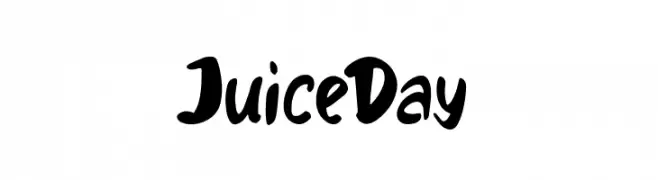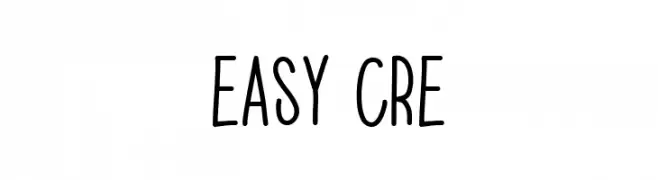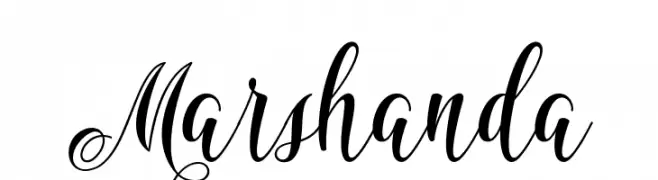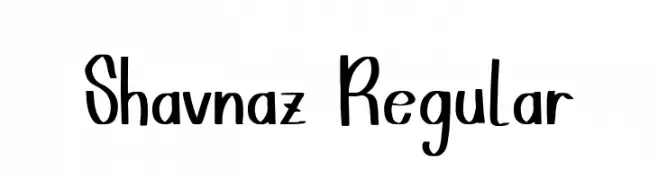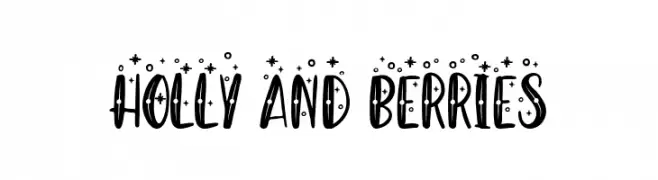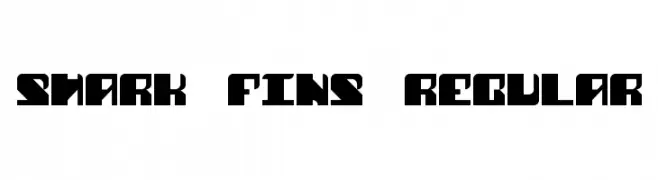
A playful and flowing script font with elegant curves and smooth connections.
A bold, italicized font with a modern and dynamic style.
A bold, playful handwritten font with thick strokes and a lively appearance.
A playful, handwritten font with tall, narrow letters and a casual style.
An elegant, flowing script font with intricate loops and swashes.
A playful, handwritten font with a whimsical and dynamic style.
A festive, bold font with decorative holiday elements and a playful style.
A bold, geometric font with sharp angles and a modern look.
A lively and elegant script font with fluid, expressive letterforms.
A bold, jagged font with a raw, edgy aesthetic and irregular strokes.